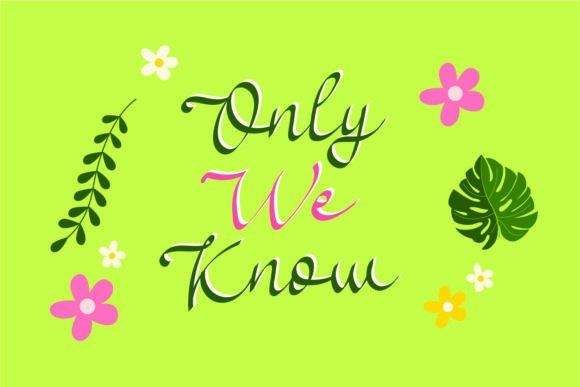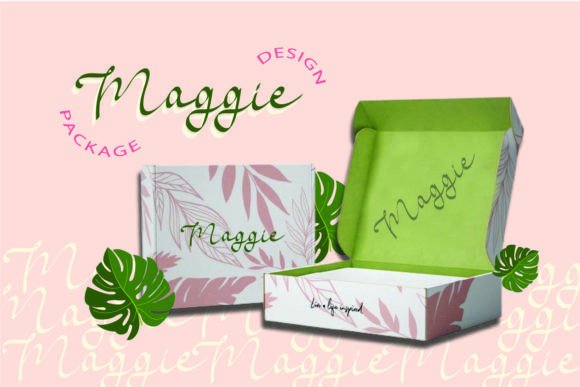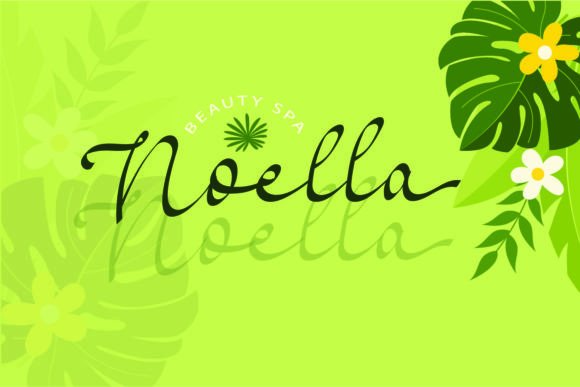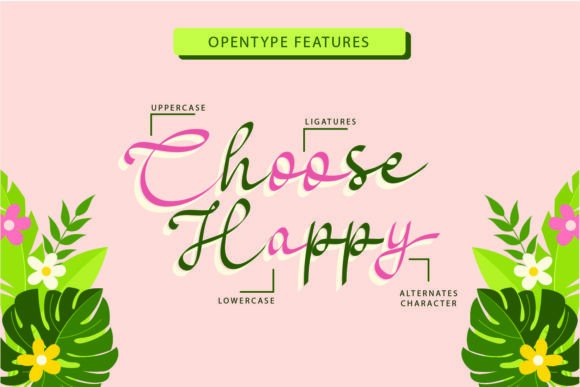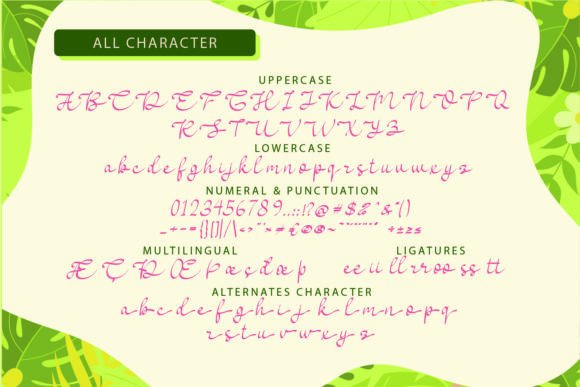
Introduction to Samfire Font Font
Fonts play a crucial role in design, and the Samfire Font font is a typeface that brings both character and versatility to any project. Whether you’re working on a branding project, a website, or a print design, the Samfire Font font offers a unique style that can elevate your work.
Samfire is a distinctive and weird handwritten font that challenges traditional typography.
With its unconventional lines and peculiar curves, each letter is a statement of individuality and quirkiness Use this font to create designs that stand out and capture attention with its unconventional style, making it perfect for projects that require a bold and unique approach.
The Samfire Font font is more than just a typeface – it’s a design tool that helps you communicate your message with style and clarity. Its unique character set and versatile design make it suitable for a wide range of applications, from elegant invitations to bold headlines.
With its carefully crafted letterforms and balanced proportions, the Samfire Font font ensures readability and visual appeal across all mediums.
What makes Samfire Font font special?
The Samfire Font font stands out with its unique design, exceptional readability, and versatility across various design applications.